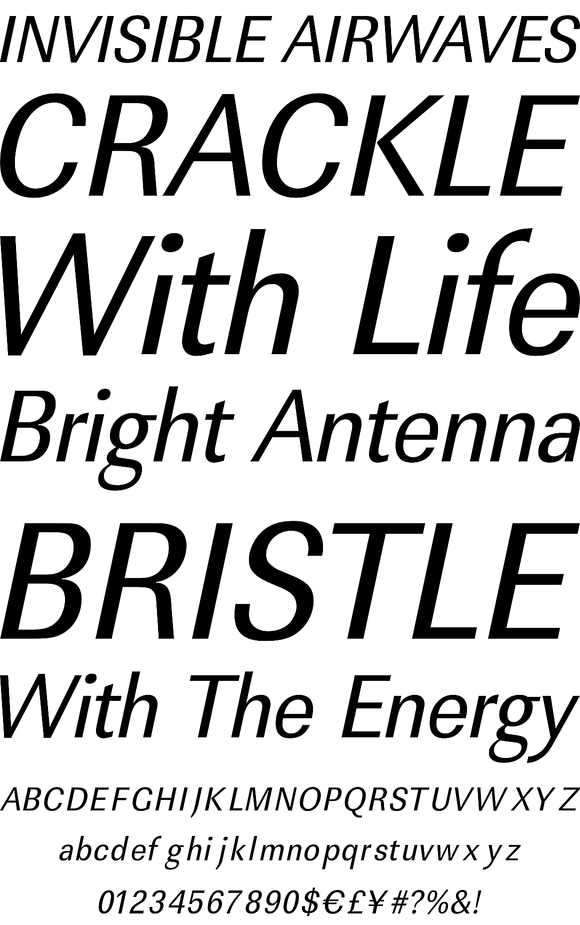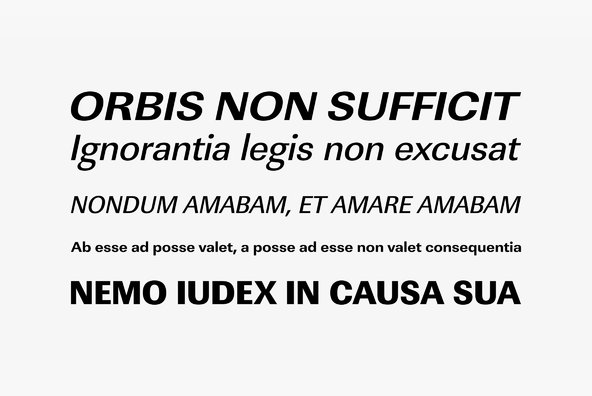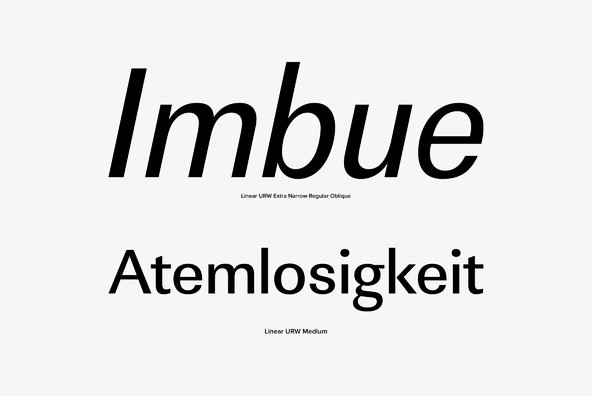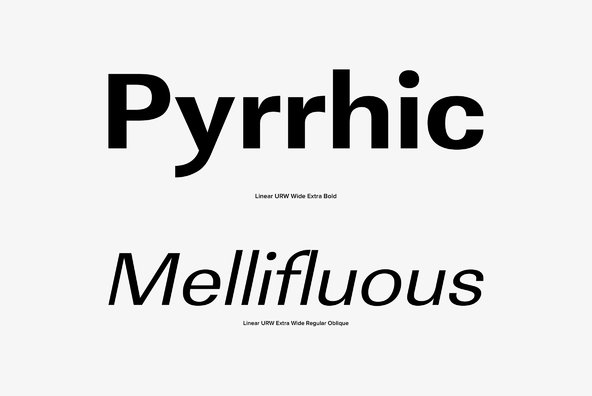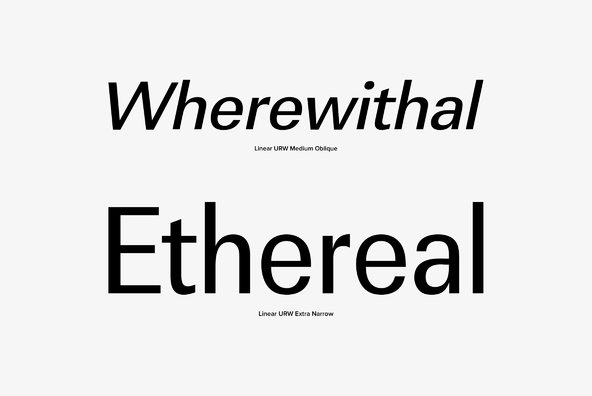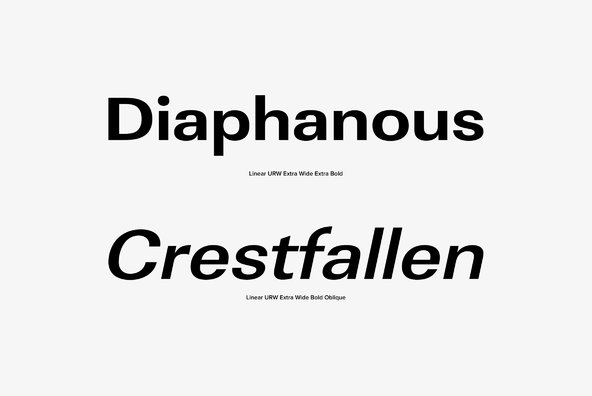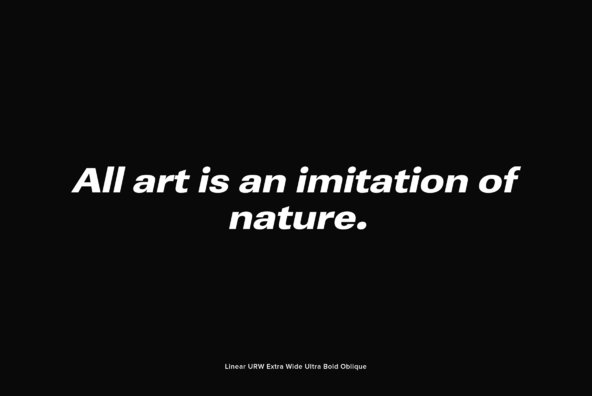
URW Linear is a modern and clean sans-serif typeface designed by Albert-Jan Pool in 1994. URW Linear contains West, East, Turkish, Baltic, Romanian language support.